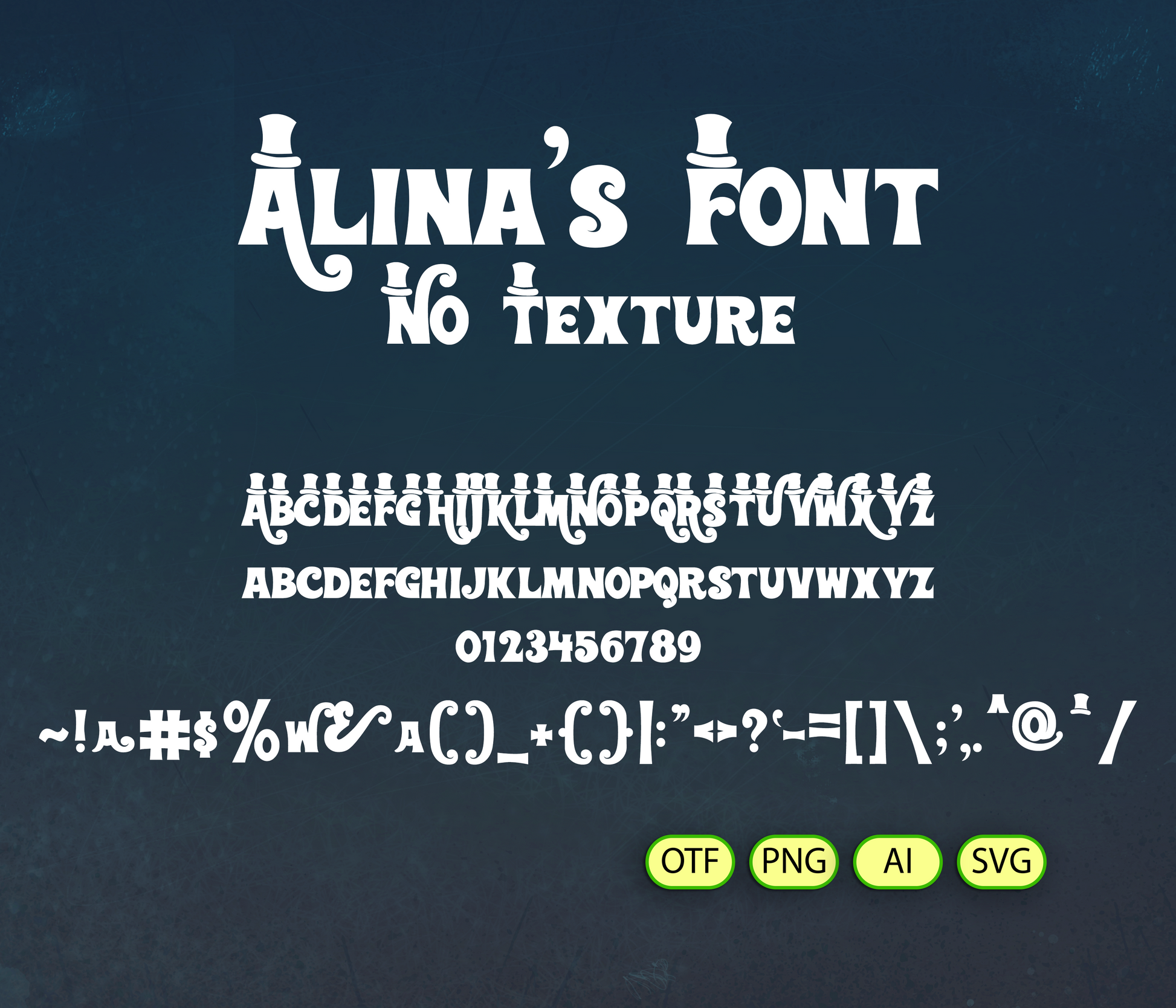
Eccentric Confectioner's Delight Font
Immerse yourself in a world of pure imagination with our Eccentric Confectioner's Delight Font! This extraordinary typeface captures the essence of a fantastical candy factory and its peculiar, top-hat-wearing owner. Perfect for whimsical designs, children's projects, and anyone looking to add a dash of sweet, mysterious charm to their creations.
What is the Eccentric Confectioner's Delight font?
Envision a font that embodies the whimsy, wonder, and slight mischief of a candy-filled wonderland. Our Eccentric Confectioner's Delight font features playful, slightly askew letterforms that seem to twirl with the promise of sugary adventures, complete with subtle nods to everlasting gobstoppers, fizzy lifting drinks, and golden-ticket excitement.
What You Can Do With Eccentric Confectioner's Delight Font
- Comprehensive Character Set: Offers a wide range of characters, including numbers and special symbols.